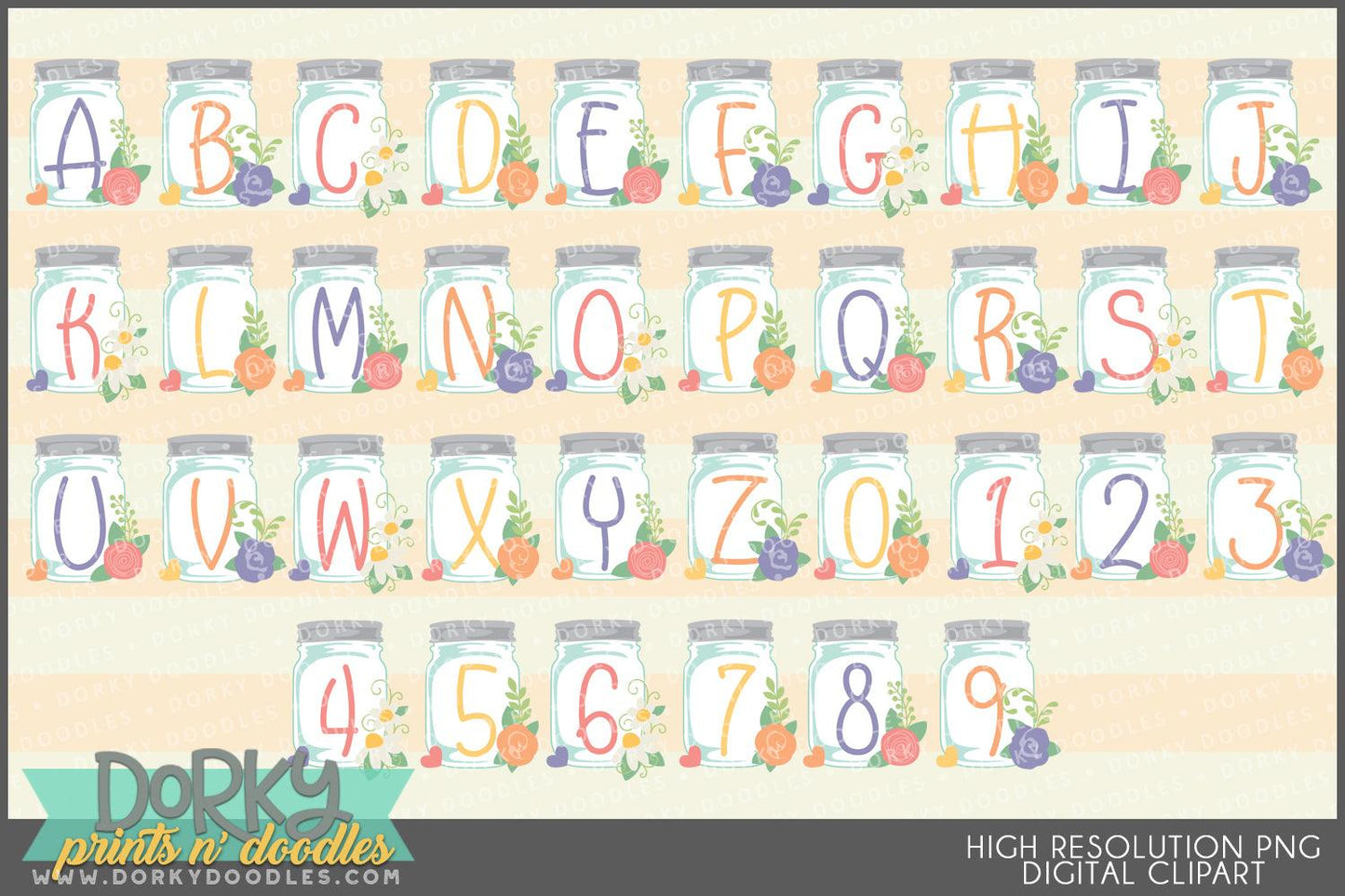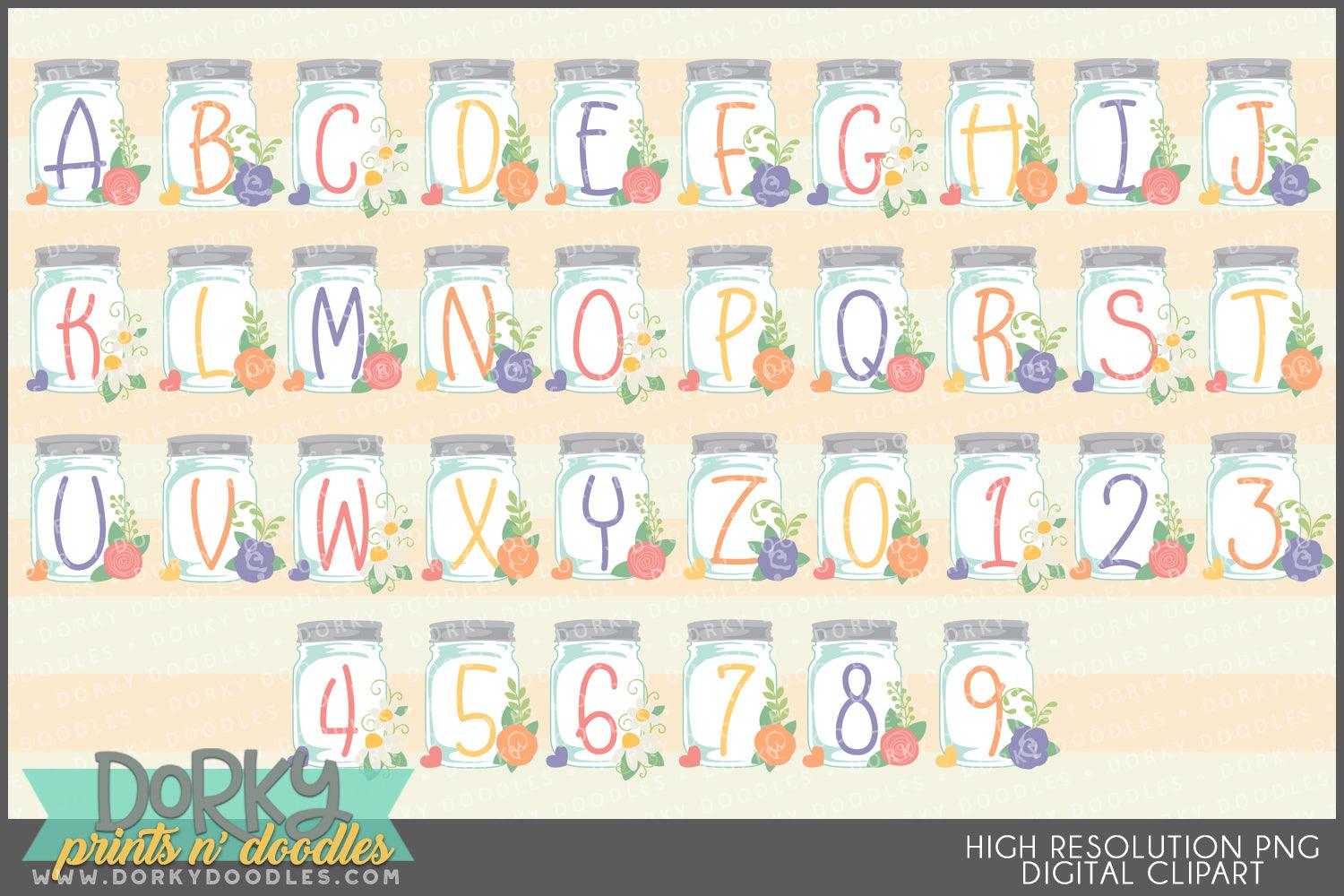
Mason Jar Font and Symbols Clipart
These cute mason jar alphabet clipart images look fabulous on cards, in scrapbooks, party invitations, planner stickers, sublimation projects, and decor! You will get 6 Digital Clip Art images in high resolution PNG format (they come as a ZIP file that you can download instantly once payment has cleared).
• the full alphabet and numbers 0-9 inside of mason jars adorned with flowers